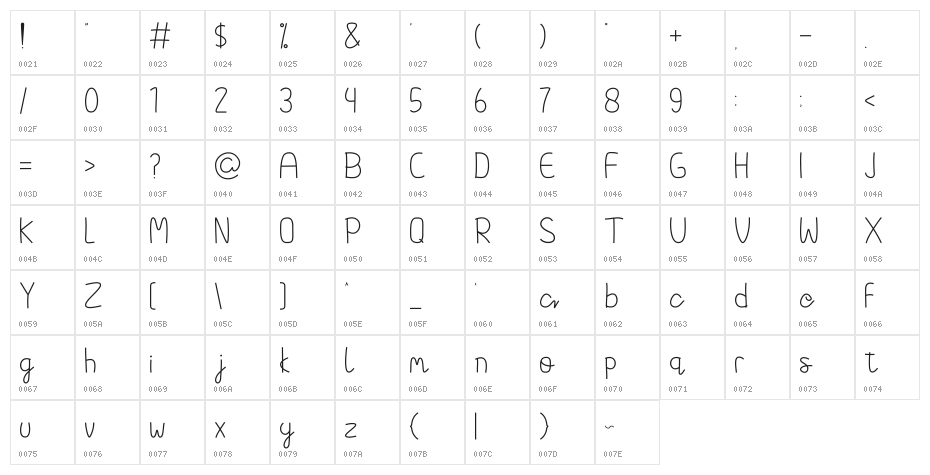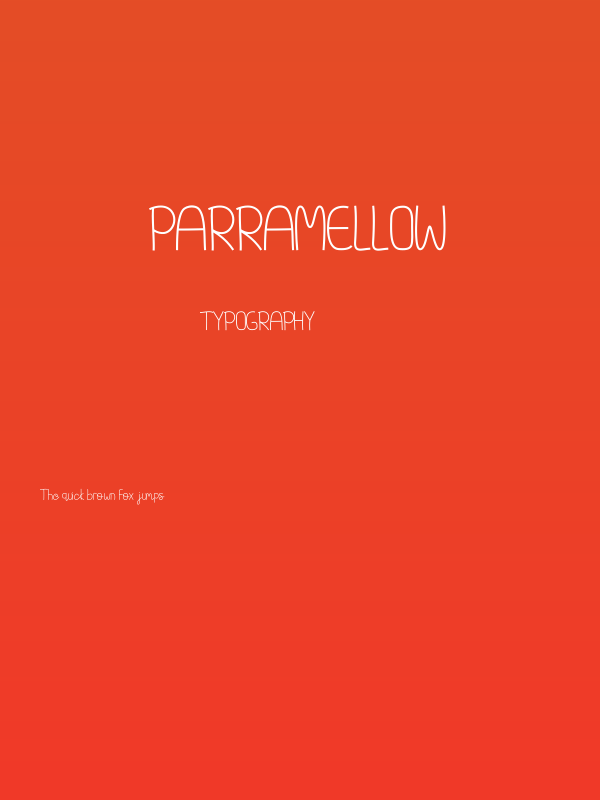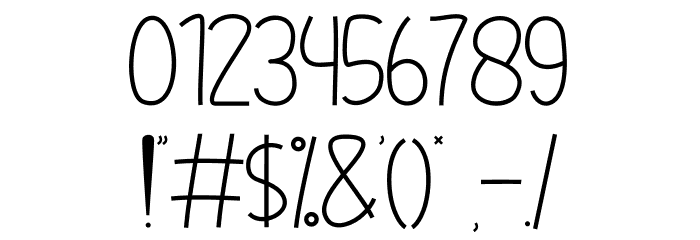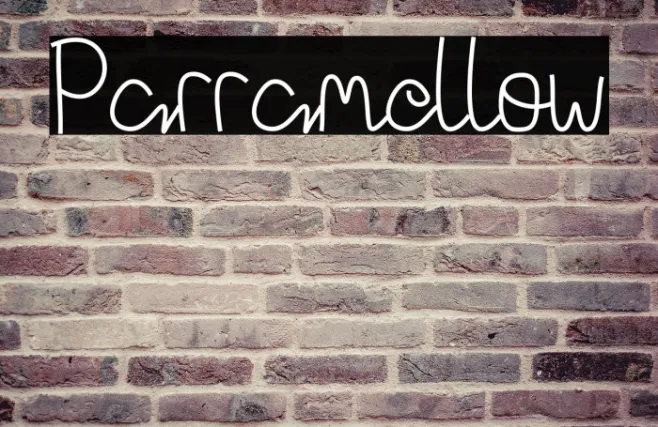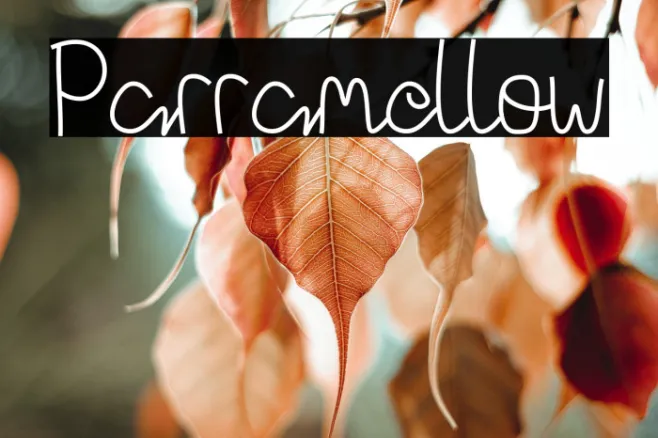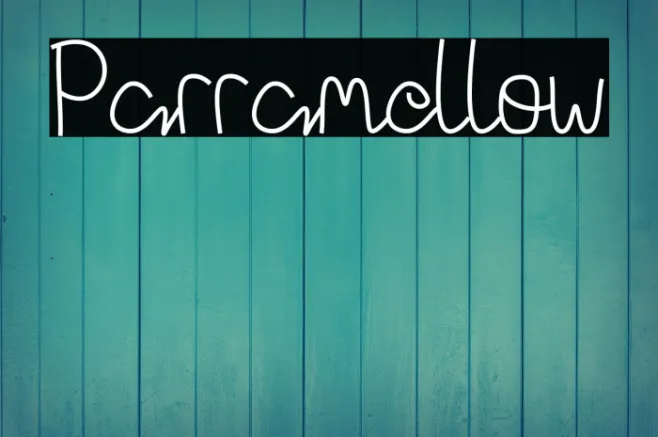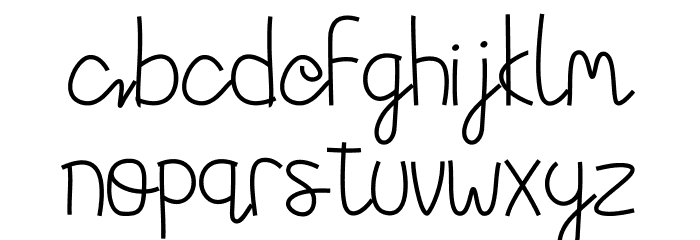
Parramellow Font
Parramellow Description
This font features a playful and whimsical handwritten style, characterized by its tall, narrow letters with rounded edges. The strokes are consistent in width, giving it a uniform appearance, while the slightly irregular baseline adds a touch of charm and informality. The uppercase and lowercase letters maintain a cohesive look, with the lowercase letters exhibiting a slight slant. Numbers and special characters are designed to match the playful aesthetic, making them suitable for creative projects. The overall design is approachable and friendly, making it ideal for casual and fun applications.
| Proposed Projects | Ideal for children's books, greeting cards, playful branding, and casual invitations. |